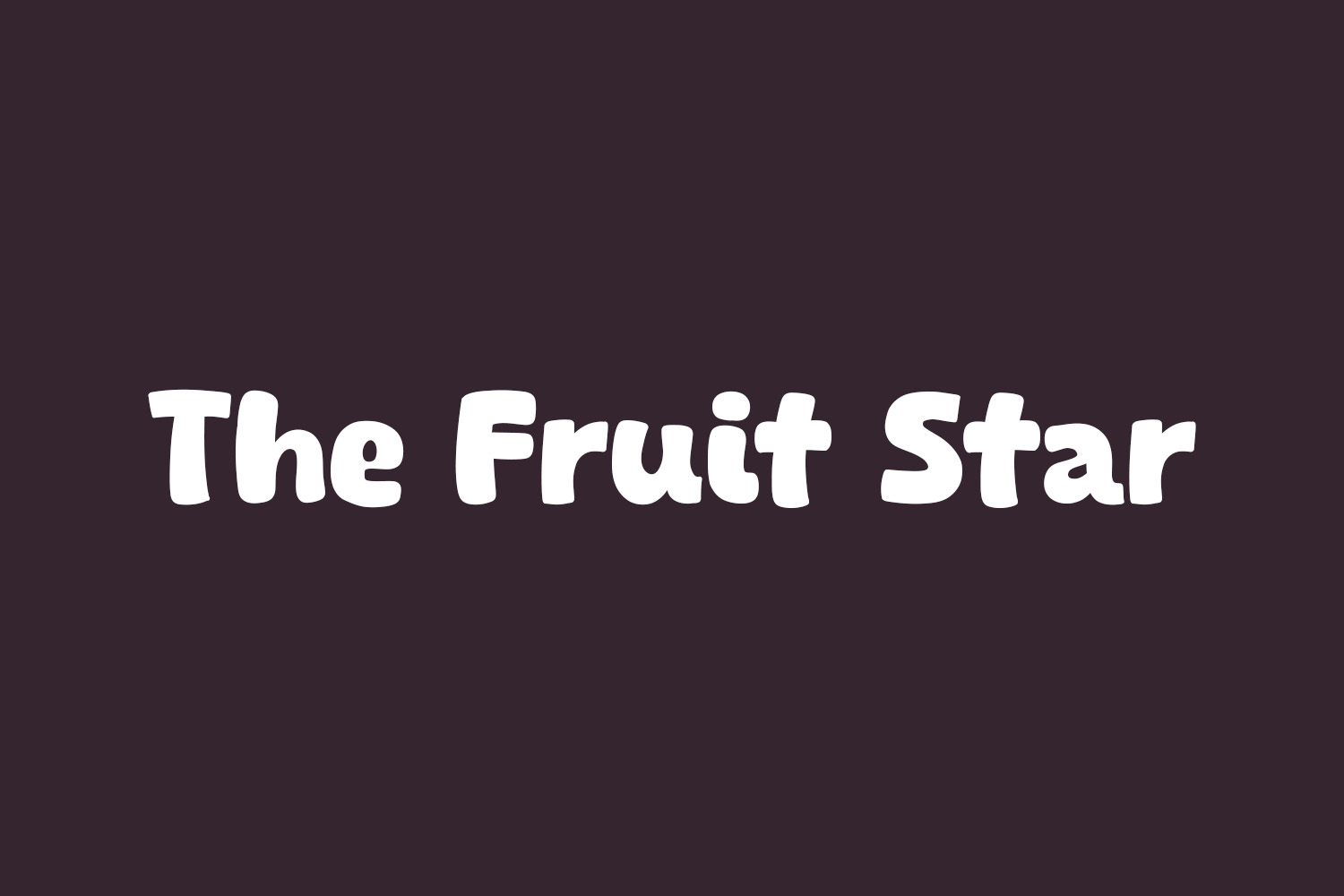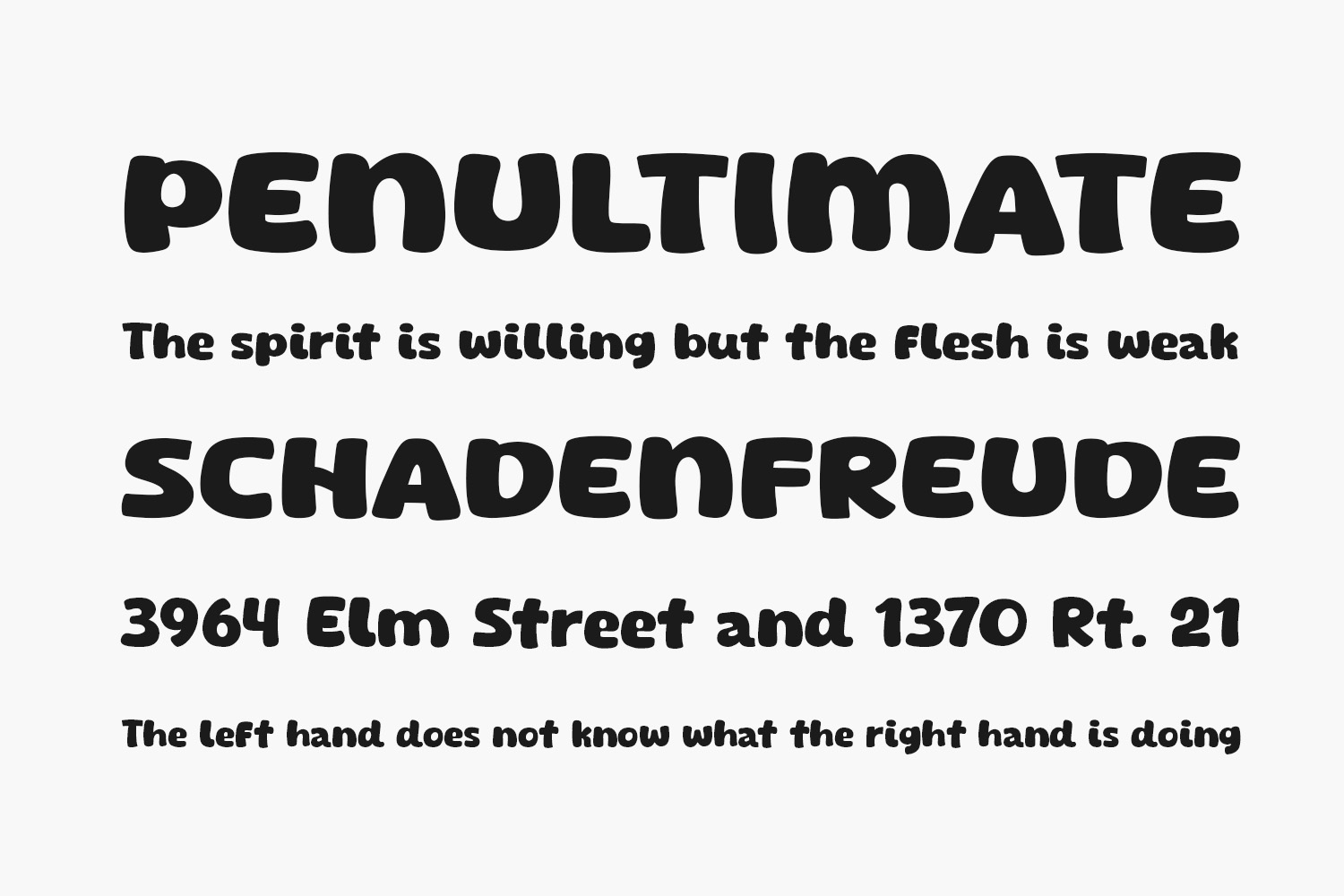
Introducing The Fruit Star Free Font, a contemporary and stylish display font ideal for elevating your posters, logos, magazines, book covers, banners, and more! Elevate your designs with this exceptional font that seamlessly complements a wide range of projects. Enhance your creative concepts by incorporating this font and witness how it effortlessly makes your designs stand out! Obtain the Fruit Star font today for an impressive and versatile addition to your design toolkit. The Fruit Star Free Font was designed by Khurasan and is free for personal or commercial use.